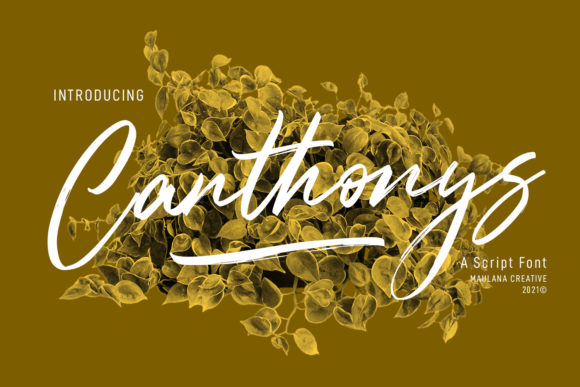
Embark on a typographic adventure with Canthonys Font, a script font that weaves elegance and charm into every character. Immerse yourself in a world of flowing lines, graceful curves, and captivating letterforms that will transform your creative projects into works of art.
Canthonys Font is the perfect choice for those seeking to add a touch of sophistication and style to their designs. Its delicate strokes and harmonious proportions make it an ideal font for wedding invitations, thank you cards, and other special occasion stationery. Let your words dance across the page with a font that evokes joy, love, and heartfelt sentiments.
Step into the realm of graphic design and unleash your creativity with Canthonys Font. Its versatility extends to logos, business cards, posters, and flyers, where it commands attention and leaves a lasting impression. With its ability to elevate any design, Canthonys Font is the key to unlocking your brand's unique identity and making a statement in a crowded market.
Journey into the world of art and let Canthonys Font guide your creative expression. Whether you're designing wall art, quotes, or greeting cards, this font will transform your words into visual masterpieces. Its enchanting curves and playful characters bring a sense of whimsy and wonder to any project, captivating your audience and leaving them spellbound.
Embrace the beauty of calligraphy and let Canthonys Font add a touch of magic to your digital creations. Its flowing lines and elegant flourishes will elevate your social media posts, blog designs, and online content, making them stand out from the crowd. With Canthonys Font, you'll create a captivating online presence that resonates with your audience and leaves them craving more.
Choose Canthonys Font and unlock a world of creative possibilities. Its versatility, charm, and sophistication will transform your designs into unforgettable experiences. Let your imagination soar and create something truly extraordinary.